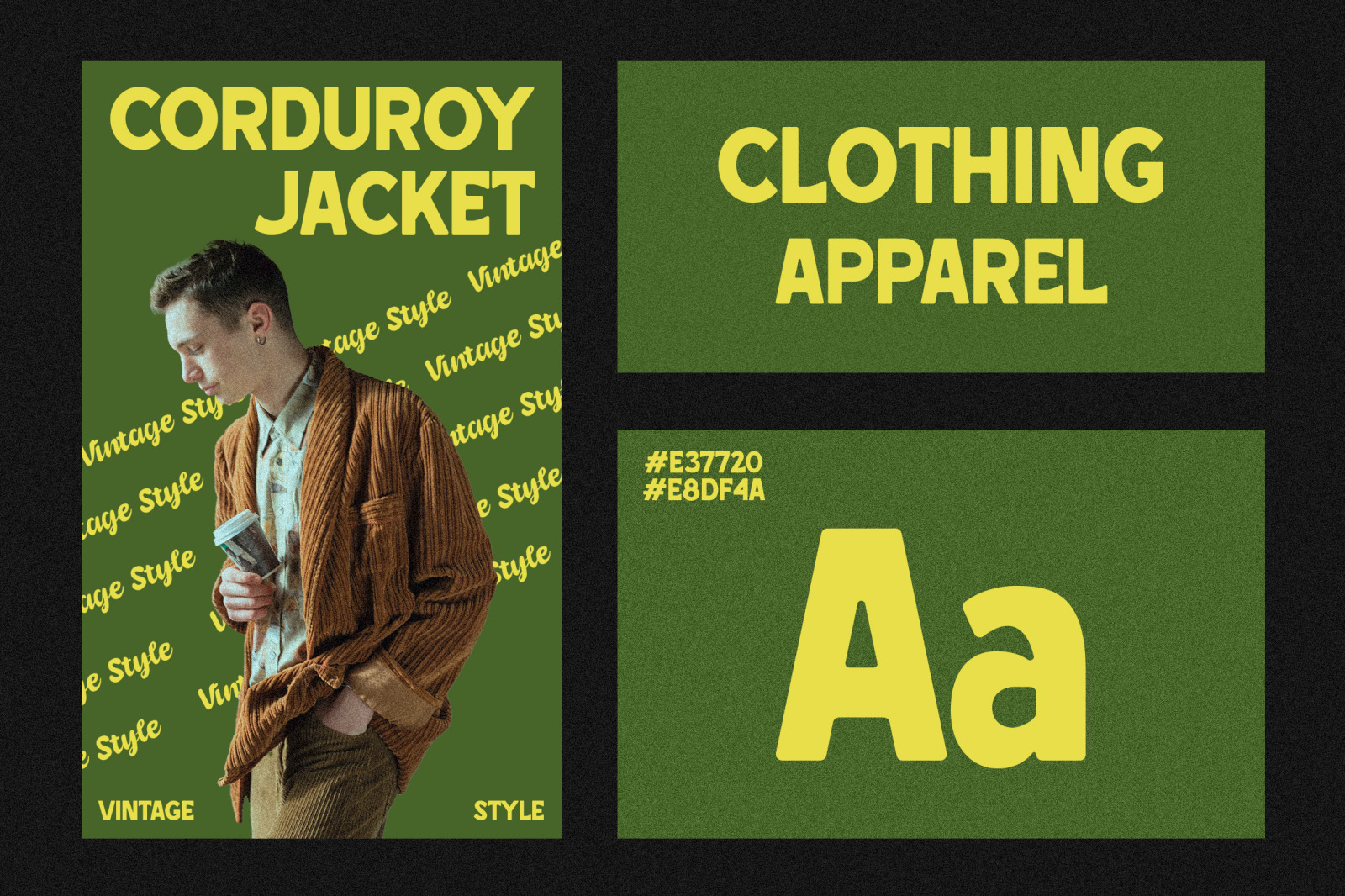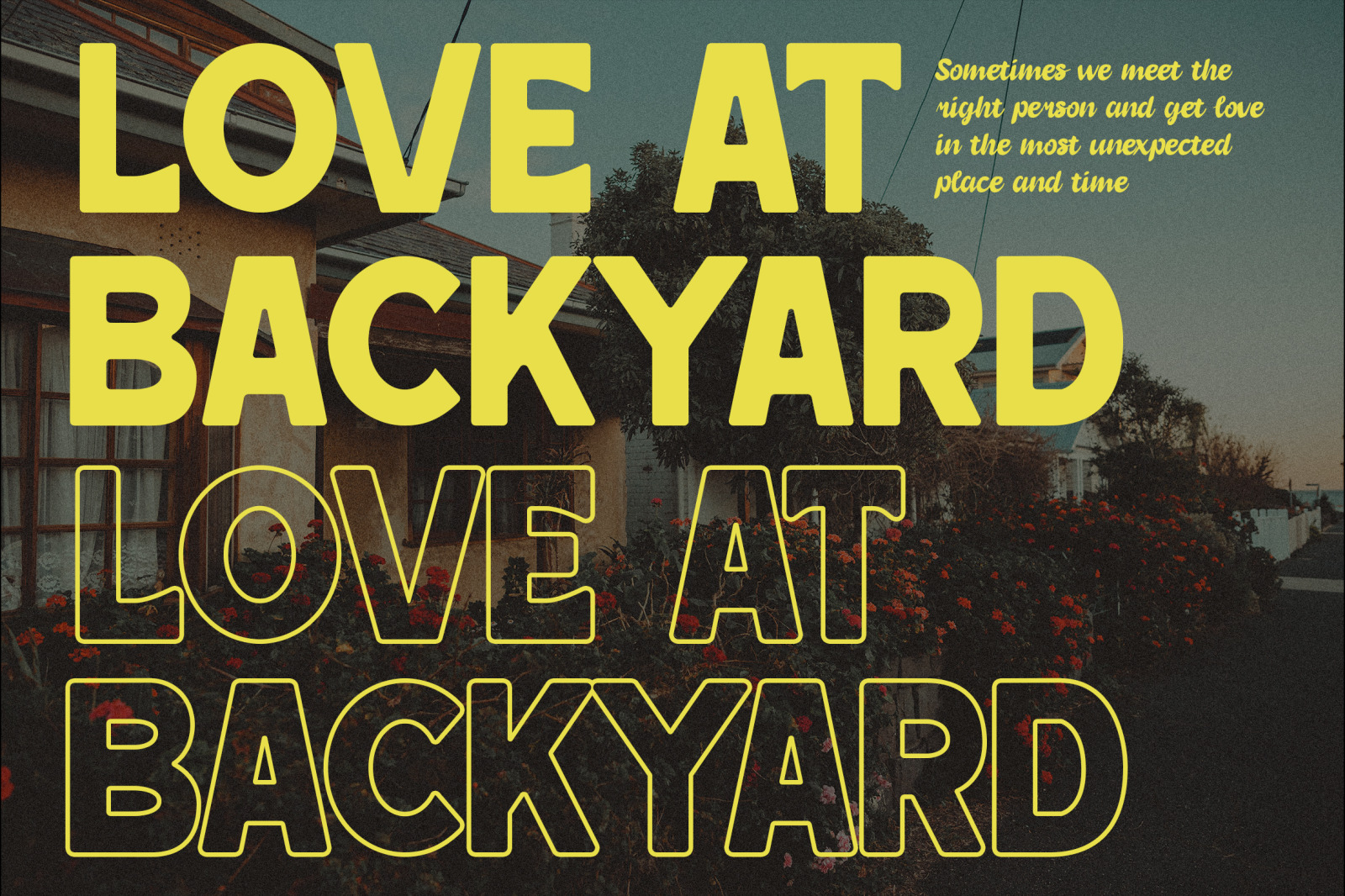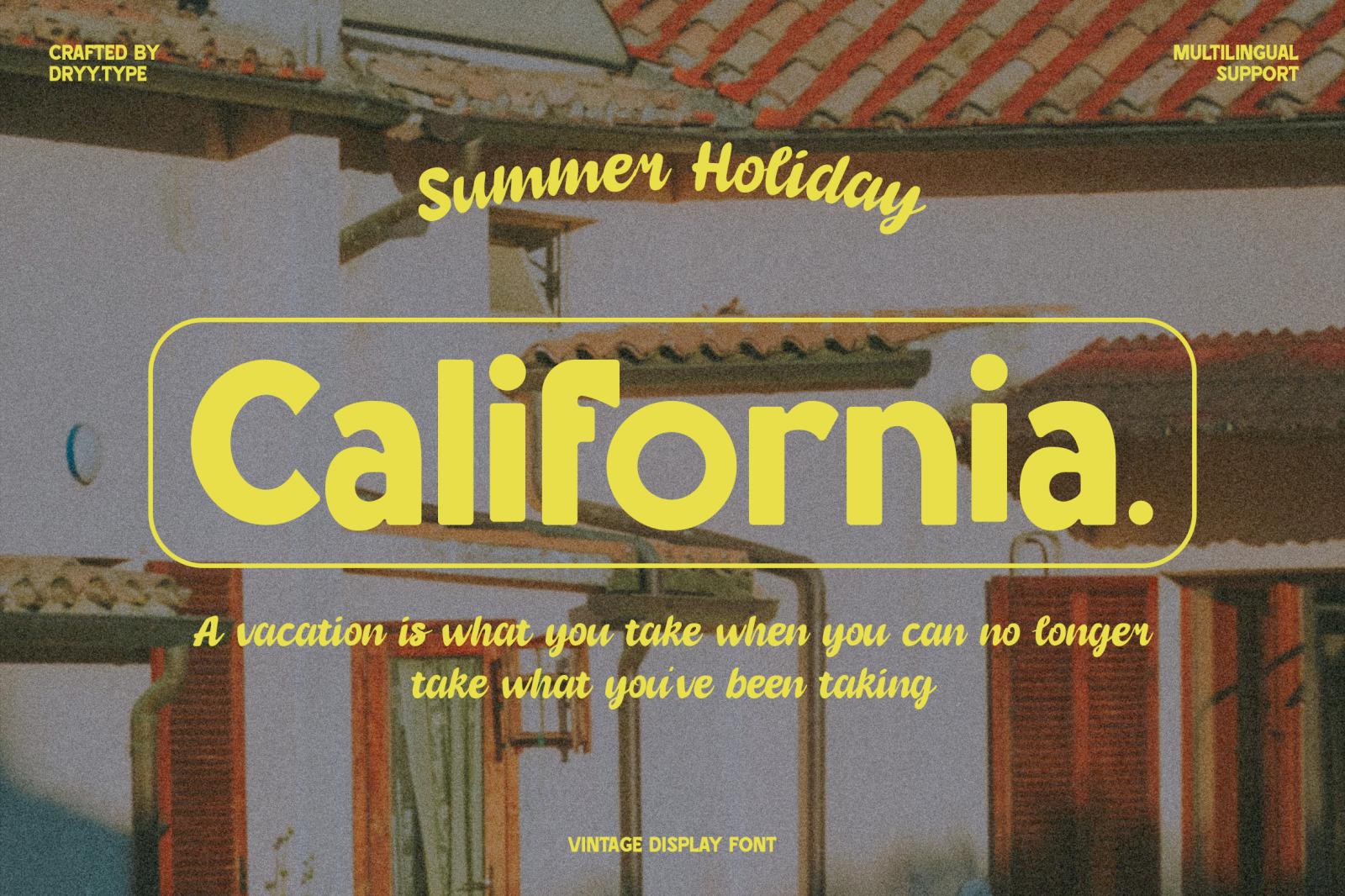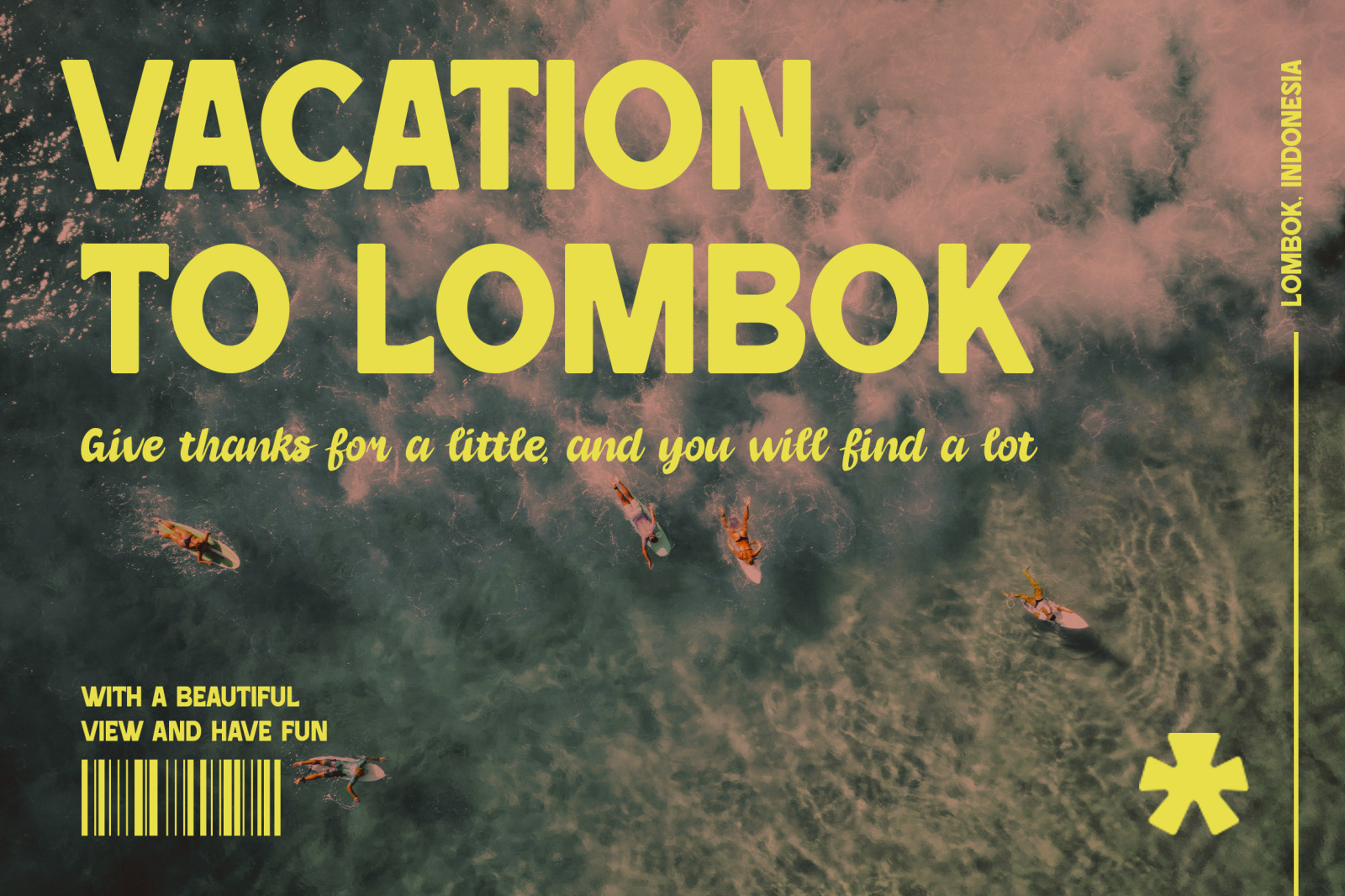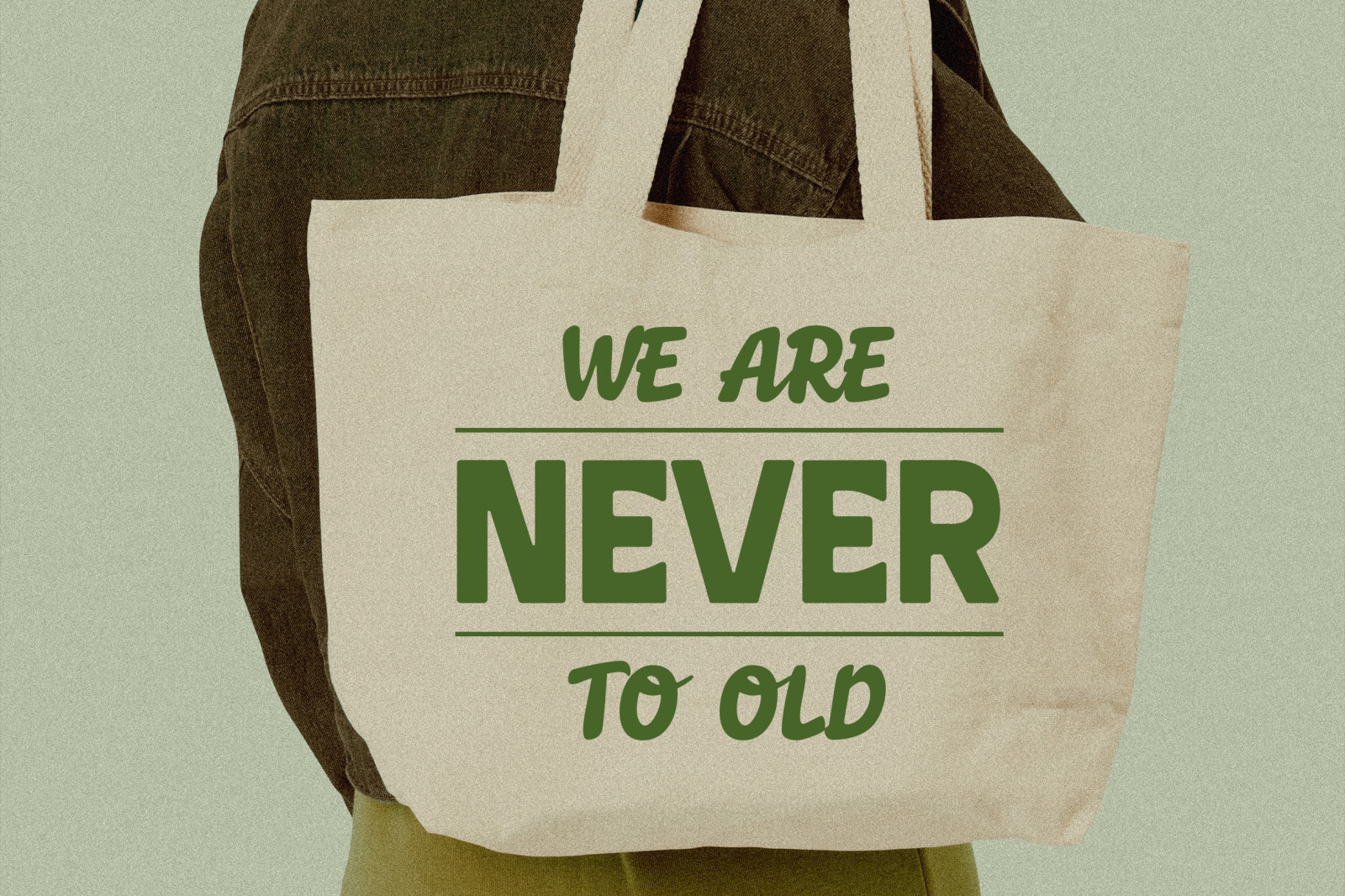
Radiate Vintage Font + Free font
Radiate Font
Radiate font is a vintage font and a free Personality font. Vintage display fonts are fonts that are designed to mimic the styles of typography that were used in the past, such as in the 19th and early 20th centuries. They often have a decorative and ornamental quality, with intricate details and flourishes. These fonts are often used for branding, advertising and packaging, as they add a sense of nostalgia and authenticity to the design.
This font I created is meaningful & very versatile, it goes well with various designs, elevating them to the highest level. Add this font to your favorite creative ideas and see how it comes to life!